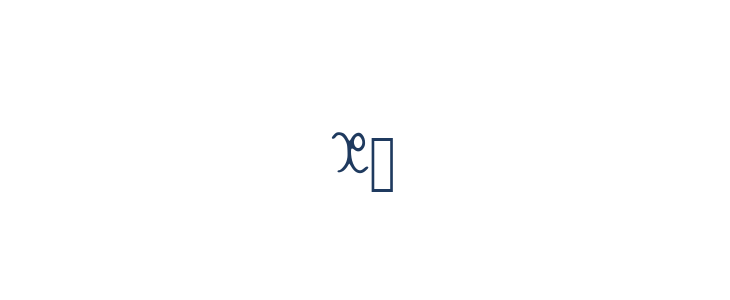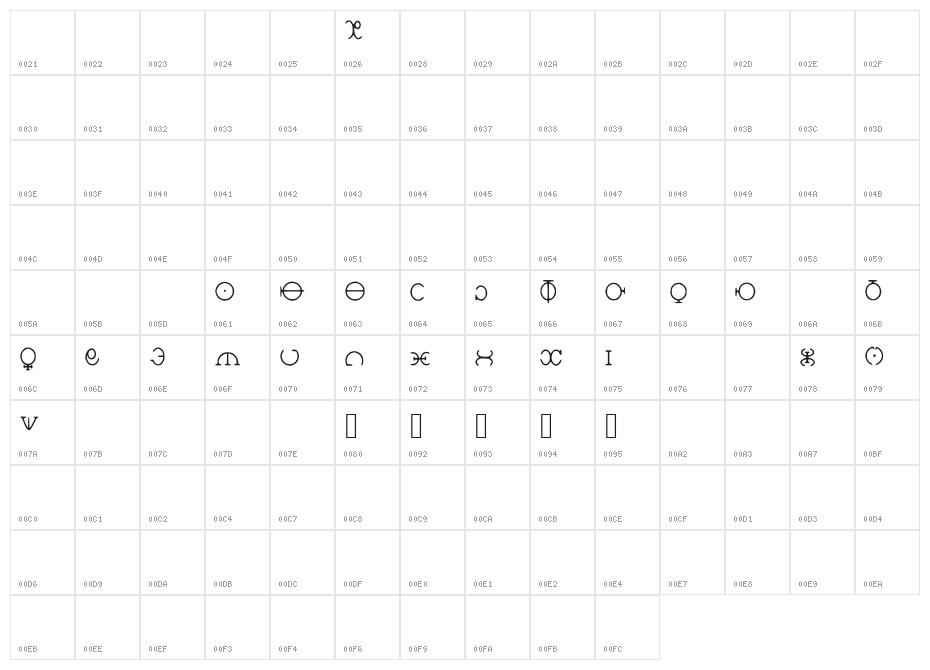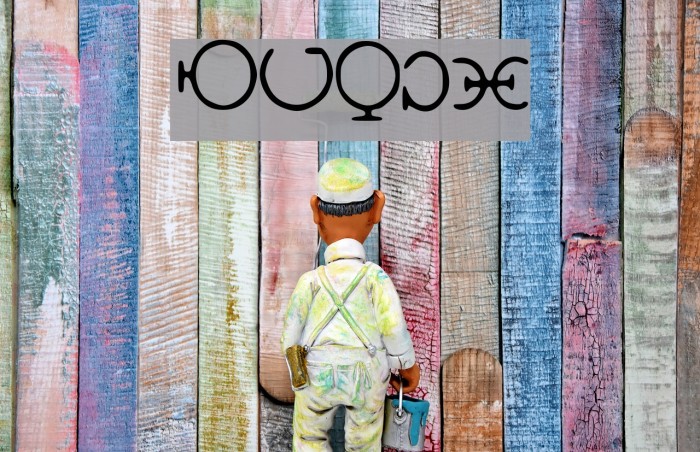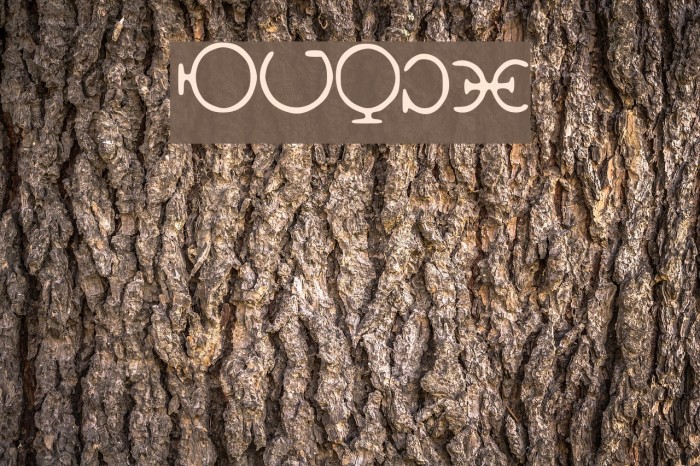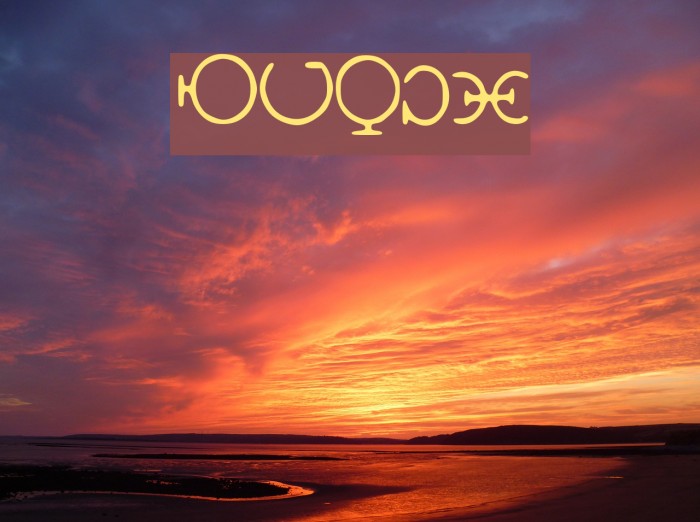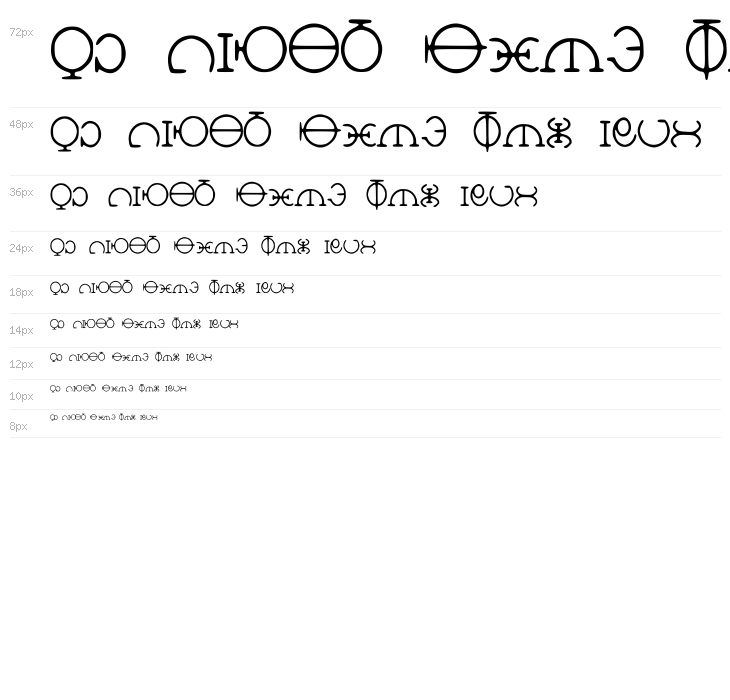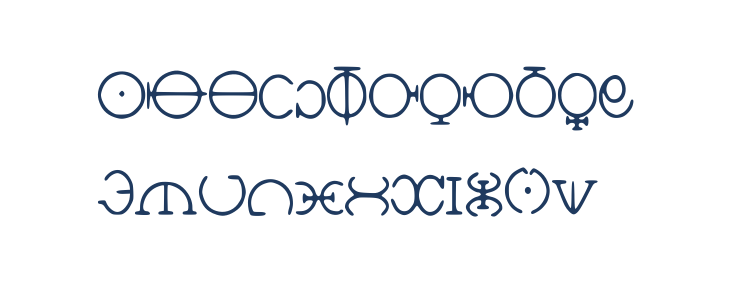
HGODCipher Font
HGODCipher Description
This design features a unique set of symbols that resemble a cipher or code rather than a traditional alphabet. The characters are circular and geometric, with a consistent use of lines and dots that create a mysterious and cryptic appearance. Each symbol is distinct, yet they share a cohesive style that suggests a secretive or encoded message. The overall look is intriguing and enigmatic, making it suitable for projects that require a sense of mystery or secrecy.
| Overall Style | Mystical and Enigmatic |
| Use Case | Artistic displays, themed events, puzzles. |
| Proposed Projects | Ideal for escape room clues, mystery-themed events, or artistic projects requiring a coded aesthetic. |